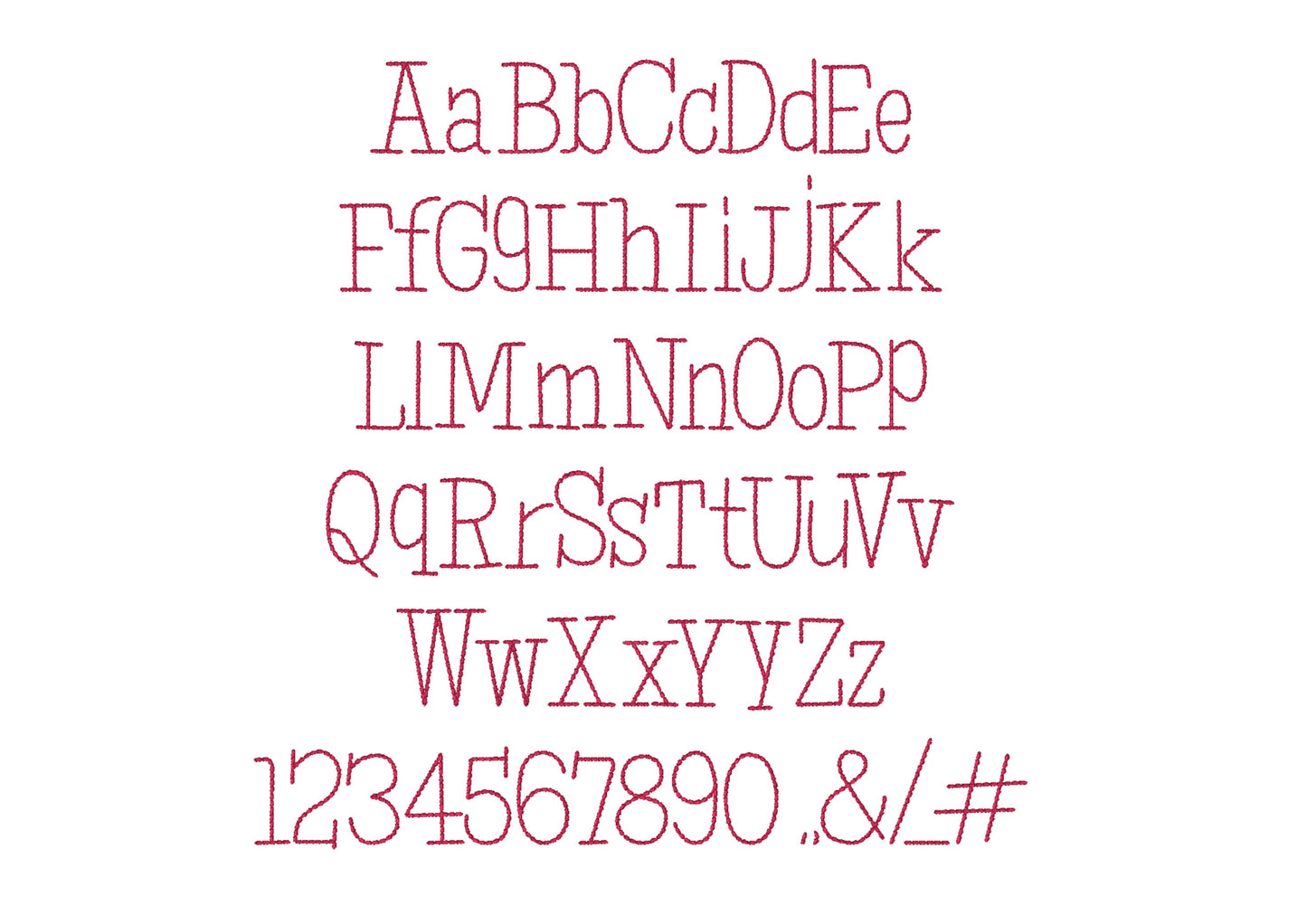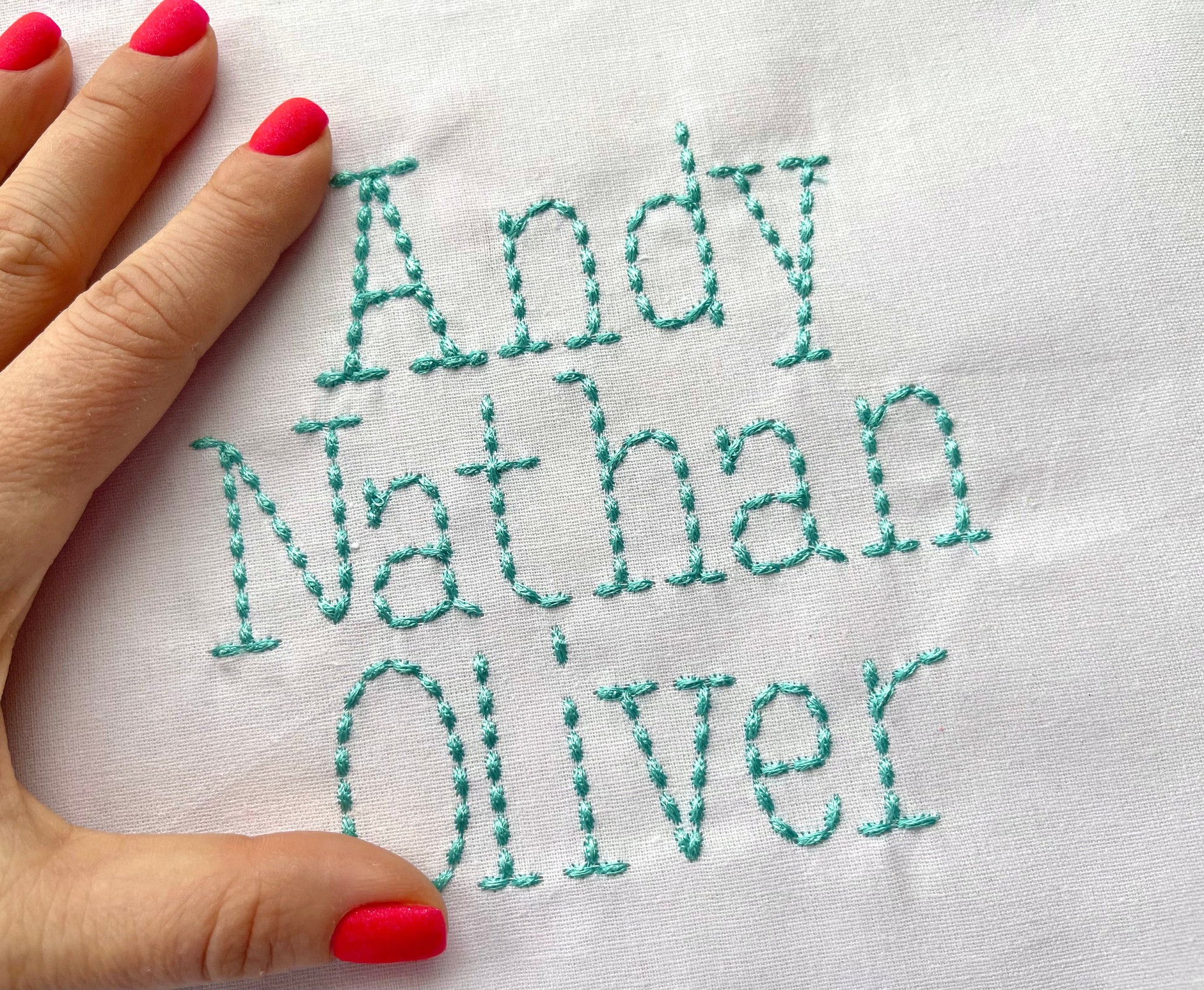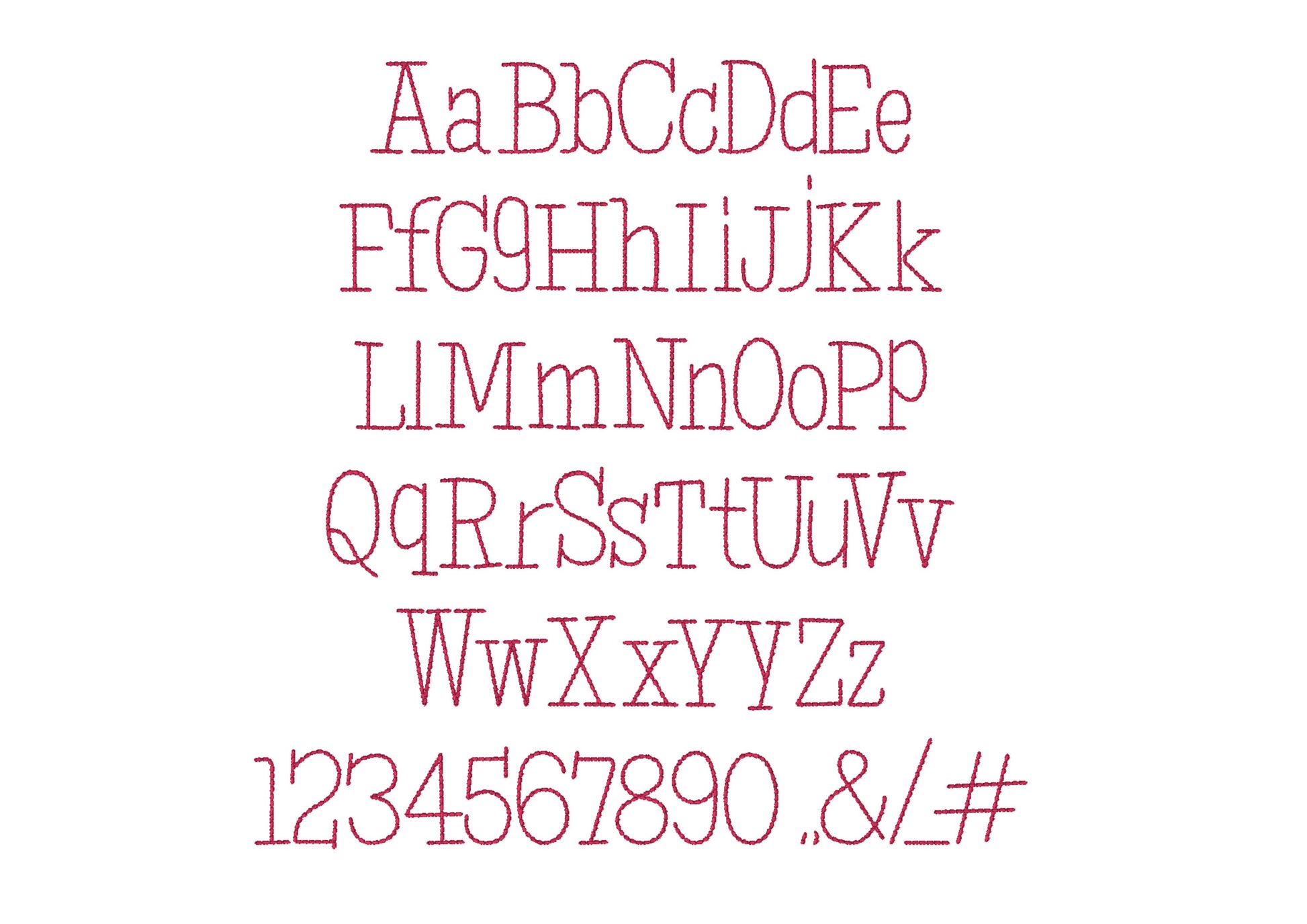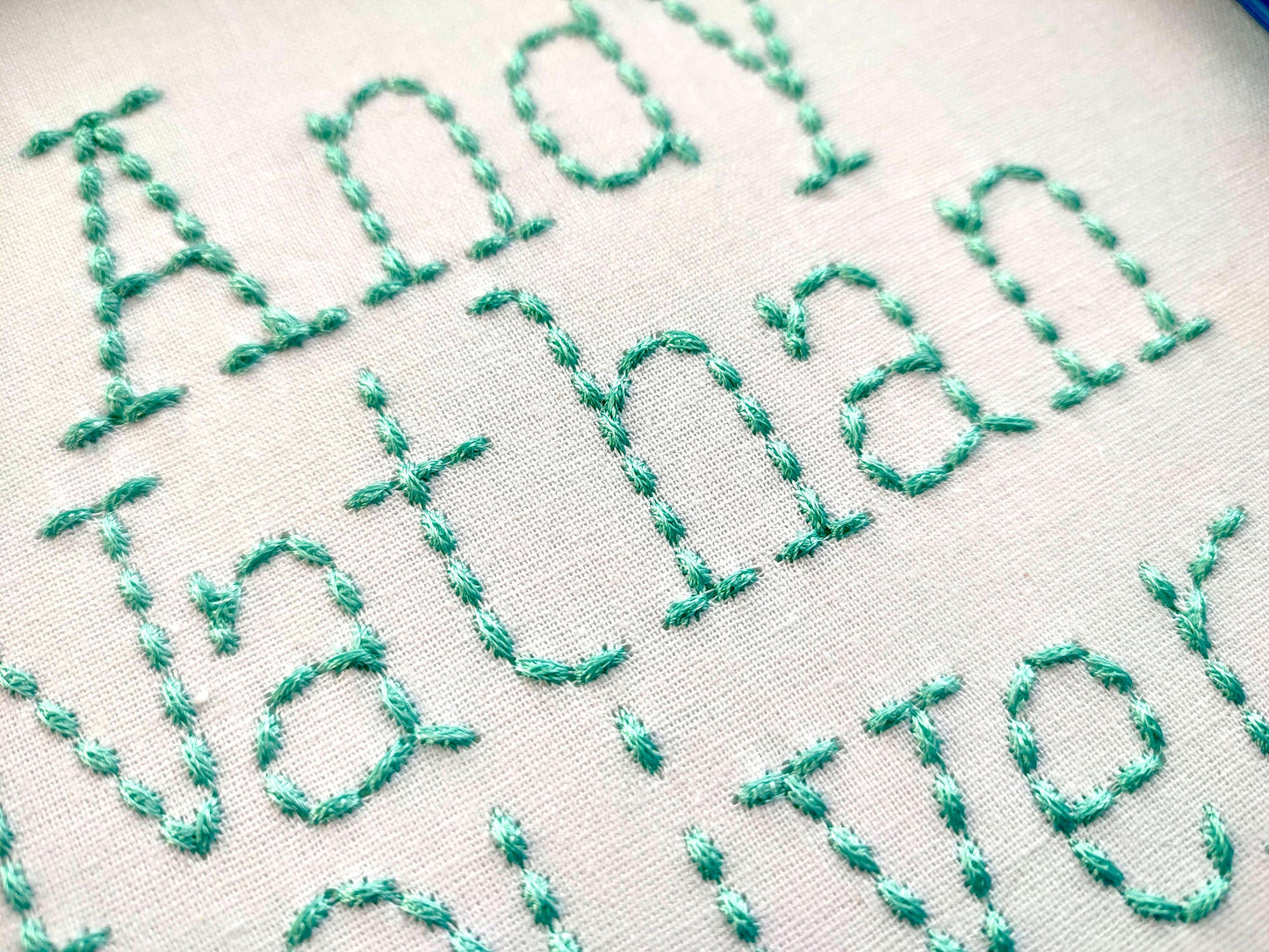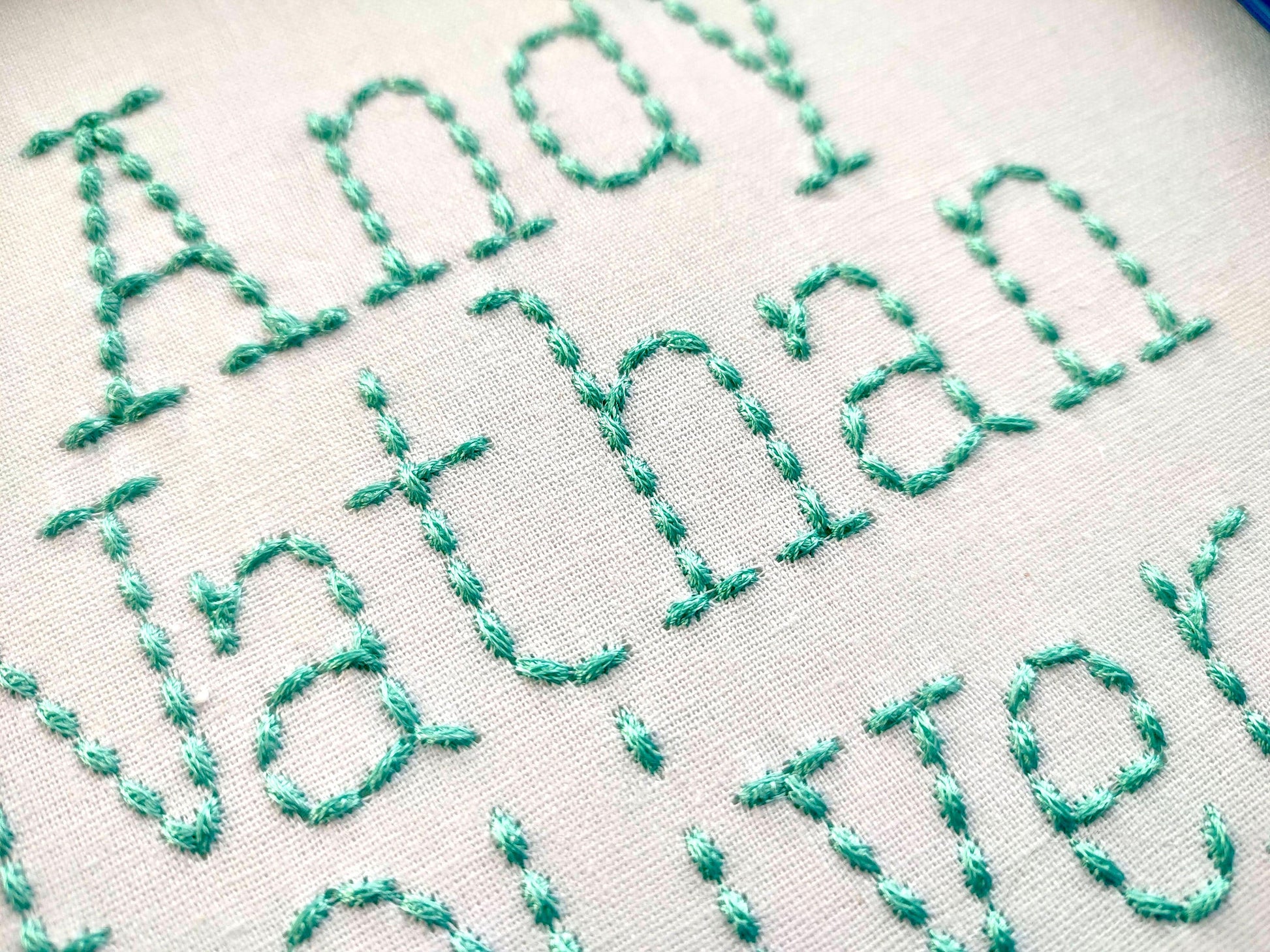
Stitched out perfect. Would buy from designer again.
Stitched out great, thank you!
Great file! Easy to use!
Works well! I just need to get the right stabilizer
Beautiful embroidery font! I had nonissues with it! It worked perfectly with gift I made!
Magnifique police d’écriture J’aime beaucoup le rendu
Stitches out exactly as pictured.
Looks great, thank you very much ;)
Great font and beautiful stitch out!
very good quality !! !!
Love this, it came out really well
It is a beautiful font
It is good to go
Love! Stitches out great and so cute!
Amei!!! vou trabalhar bastante com esse alfabeto!!!
This font is adorable and stitched great!
Beautiful font. Loved it.
Stitched great! Will definitely purchase from the seller again.
love this! so excited to use
Stitches out beautifully as always!
Love this font. Stitched out perfectly.
Stitched out beautifully! I would recommend and use over and over again.
Thank you- this is great!
Love! Worked great and definitely recommend.
Great font, no issues, thanks
Stitched out perfect! Thank you!
Letters stitched out really well. I am very pleased with my purchase, and can’t wait to give the blanket I am making with the baby’s name on it!
Came out exactly how I expected and matched the item description
Lovely font! Will be using it a lot
This is exactly what I needed! LOOK HOW CUTE!!!
Je suis ravie du rendu!! Les points sont originaux!
Great thick hand looking stitches. Artapli never disappoints. I stitched over felt and trimmed around stitches.
Beautiful design. Easy to embroider. Original design.
This font stitches out beautifully
Too cute for little boys embroidery
Looks just like hand-stitched work!